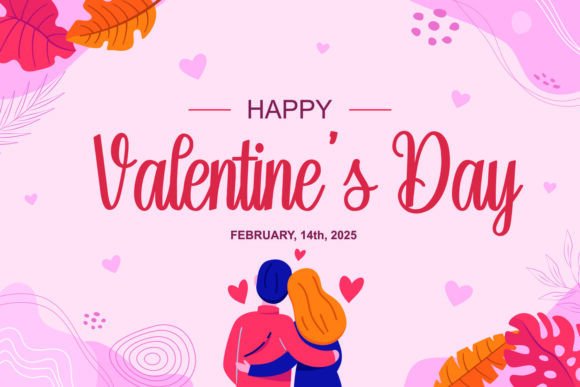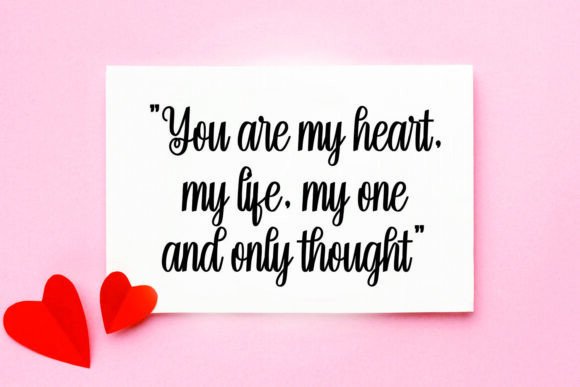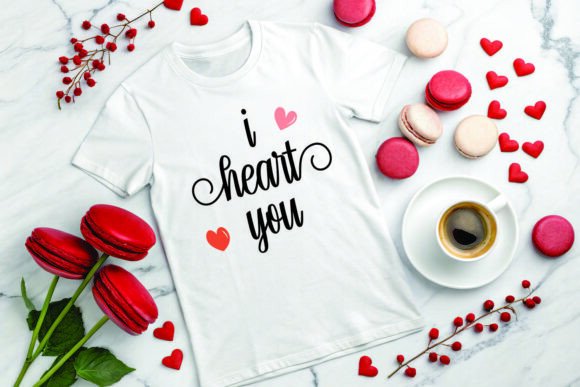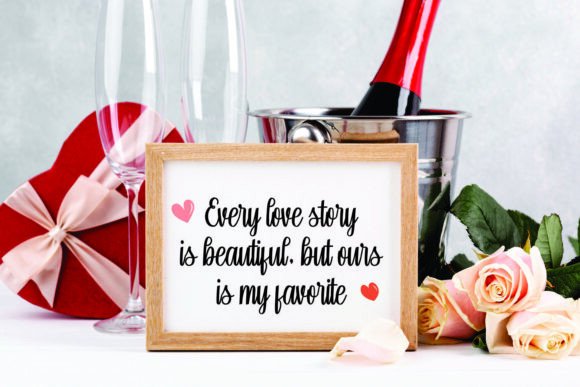
Introducing Heartbeat Font: The Ultimate Quirky Script for Romantic and Festive Designs
Are you looking for a font that adds a touch of whimsy and romance to your designs? Look no further than Heartbeat Font, a charming and unique quirky script handwritten font. With its playful curves and smooth strokes, Heartbeat creates a warm and inviting look that’s perfect for romantic and festive designs. Whether you’re working on a project for Valentine’s Day, Christmas, New Year, or Easter, this font brings a delightful touch that will make your designs stand out.
Design Features of Heartbeat Font
Heartbeat Font is designed with elegance and creativity, featuring beginning swashes and ending swashes that add a flowing, artistic feel to every word. The gentle movement of each letter enhances the font’s beauty, making it ideal for crafts, Cricut projects, embroidery, and lettering. The font’s balanced design ensures readability while maintaining a whimsical appeal that’s sure to capture the attention of your audience.
One of the standout features of Heartbeat Font is its smooth monoline strokes, which give a sense of harmony and sophistication to any design. This makes it a great choice for greeting cards, invitations, branding, and seasonal decorations. Whether you’re creating a DIY craft or a professional design, Heartbeat Font is the perfect choice.
Perfect for a Variety of Themes and Projects
Heartbeat Font is a versatile typeface that complements a variety of themes, from winter and Thanksgiving to holiday celebrations and DIY crafts. Its unique personality and handmade feel make it perfect for:
- Valentine’s Day designs: Create romantic and playful designs for Valentine’s Day with Heartbeat Font’s charming and whimsical feel.
- Christmas and New Year designs: Add a touch of festive fun to your holiday designs with Heartbeat Font’s smooth and elegant strokes.
- Easter and spring designs: Bring a sense of renewal and joy to your Easter and spring designs with Heartbeat Font’s playful and artistic feel.
- Crafts and Cricut projects: Use Heartbeat Font to add a personal touch to your crafts and Cricut projects, such as paper crafts, iron-on designs, and more.
- Embroidery and lettering: Heartbeat Font’s smooth strokes and gentle movement make it perfect for embroidery and lettering projects.
Why Choose Heartbeat Font?
So why choose Heartbeat Font for your next design project? Here are just a few reasons:
- Unique and quirky design: Heartbeat Font’s playful curves and smooth strokes create a unique and whimsical look that’s sure to stand out.
- Versatile and adaptable: Heartbeat Font complements a variety of themes and projects, making it a great addition to any designer’s toolkit.
- Elegant and sophisticated: Despite its playful feel, Heartbeat Font has a smooth and elegant quality that makes it perfect for professional designs.
- Easy to read: Heartbeat Font’s balanced design ensures readability, making it perfect for designs that need to communicate a message.
In conclusion, Heartbeat Font is a charming and unique quirky script handwritten font that’s perfect for romantic and festive designs. With its playful curves, smooth strokes, and elegant feel, Heartbeat Font is a versatile typeface that complements a variety of themes and projects. Whether you’re a designer, crafter, or DIY enthusiast, Heartbeat Font is a great choice for adding a touch of whimsy and romance to your designs. So why not give it a try and see the difference it can make in your next project?